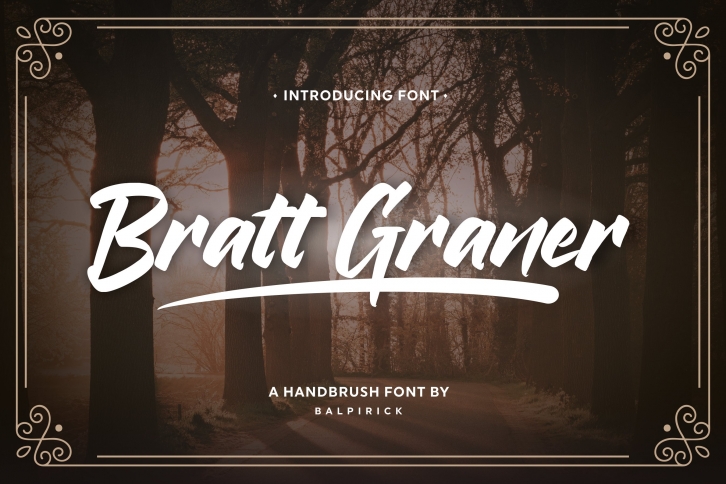
Bratt Graner is a beautiful font that was designed by Balpirick. It's a great choice for designers and creatives who need such a font. It was released on April 16, 2020 and the file size is 9.35 MB. Bratt Graner may give a more youthful, expressive and casual look to your project. It is a very beautiful, refined, elegant, and high-quality font.